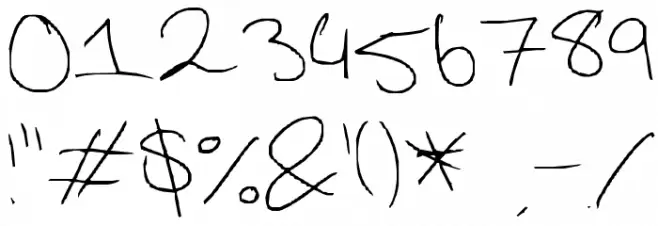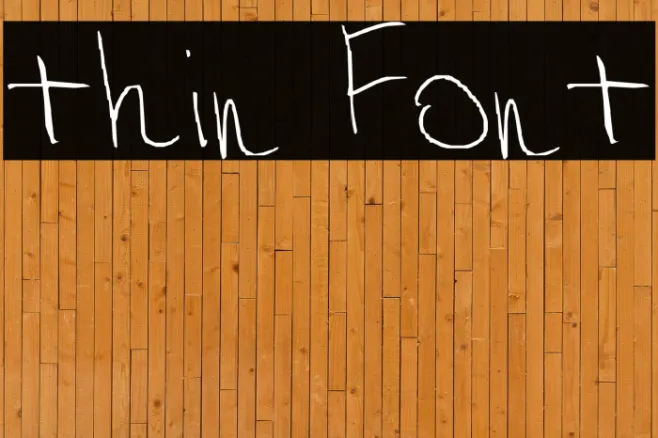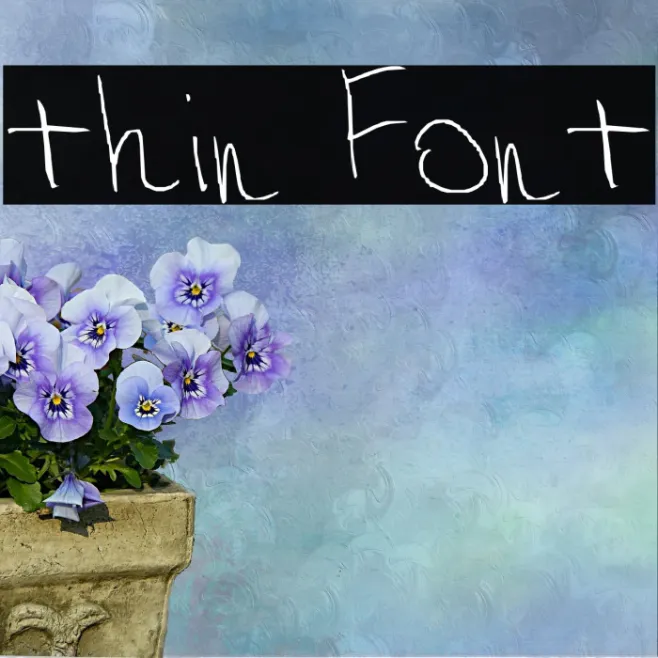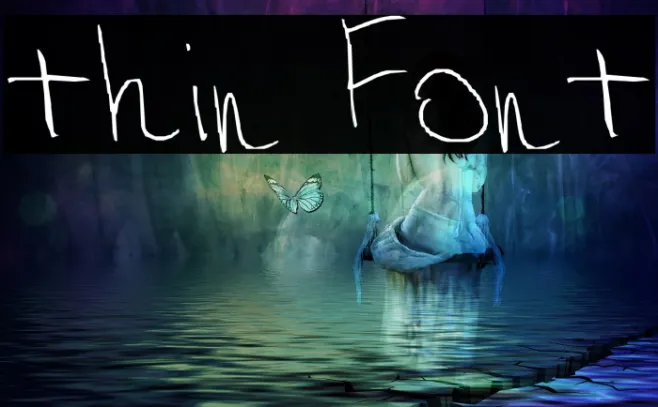
thin Font
thin Description
This font features a casual, handwritten style with a playful and informal appearance. The letters are thin and slightly irregular, giving it a personal and authentic feel. The uppercase and lowercase characters are distinct, with a natural flow that mimics real handwriting. The numbers and special characters maintain the same casual aesthetic, making it versatile for various informal applications. The overall look is approachable and friendly, suitable for projects that require a personal touch.
A casual, handwritten font with a playful and informal style from Handwritten fonts.
- Proposed Projects: Ideal for greeting cards, personal notes, informal invitations, and creative projects that require a personal touch.
- Weight: Light
- Overall Style: Casual
- Use Case: Headlines, Informal text, Creative projects